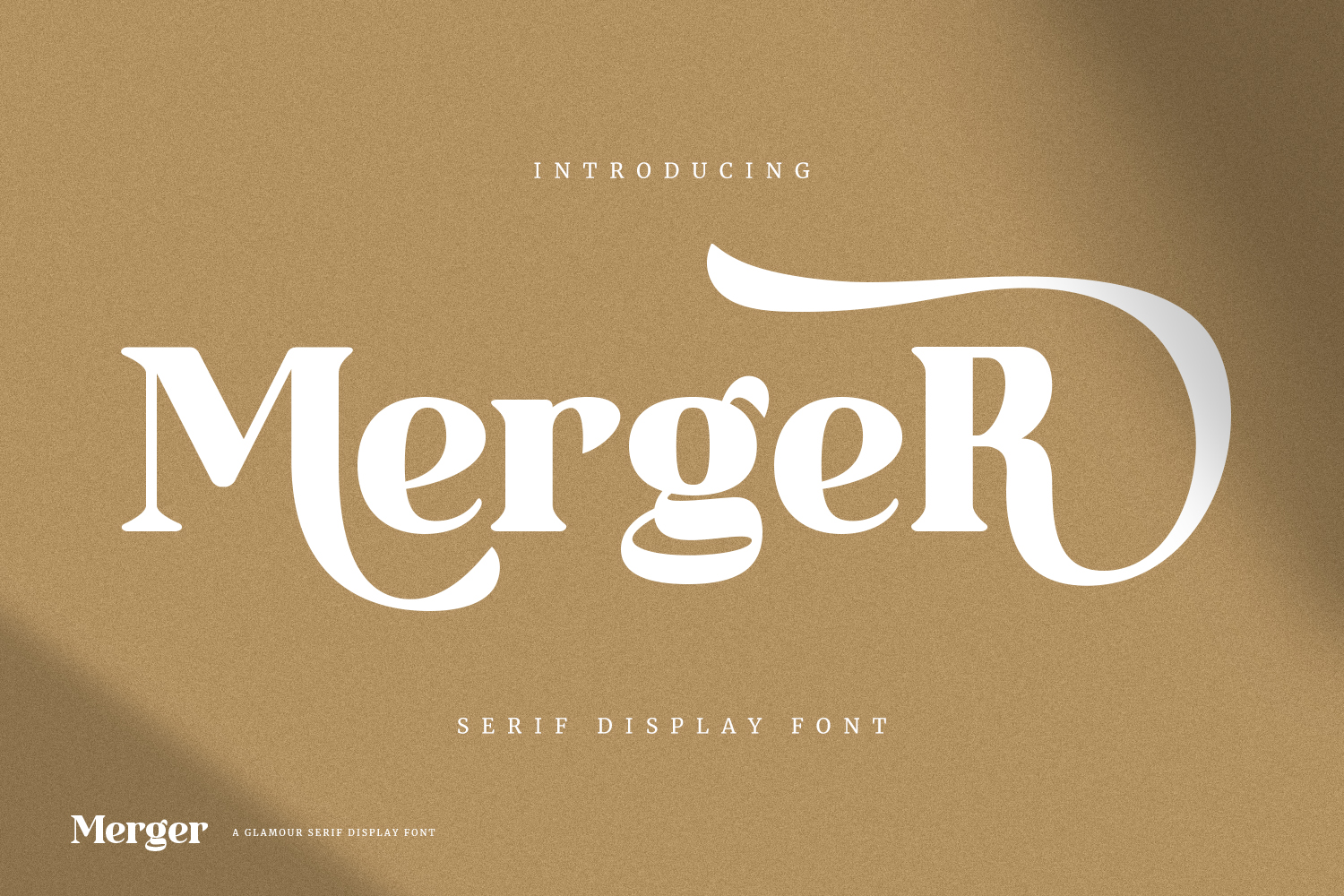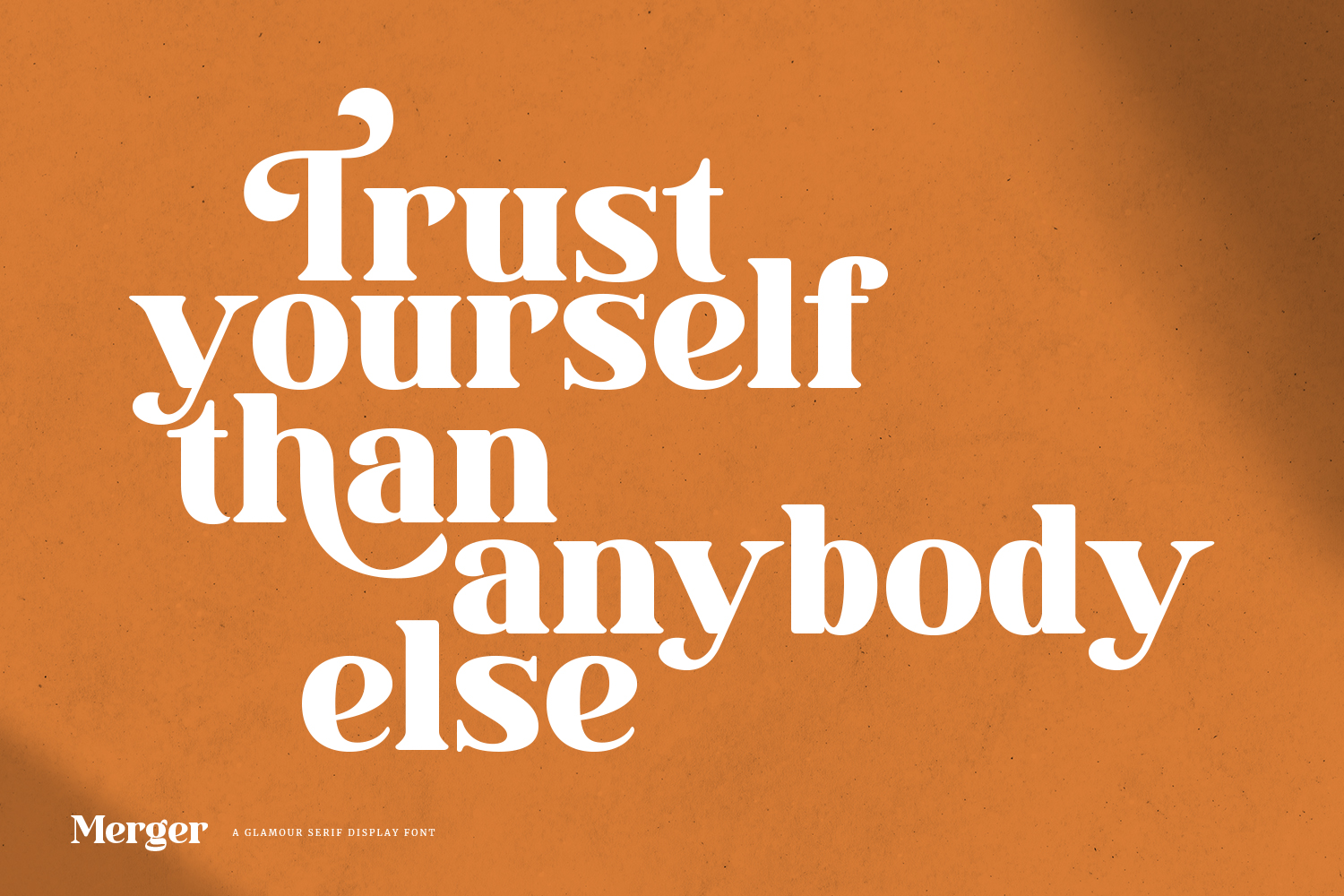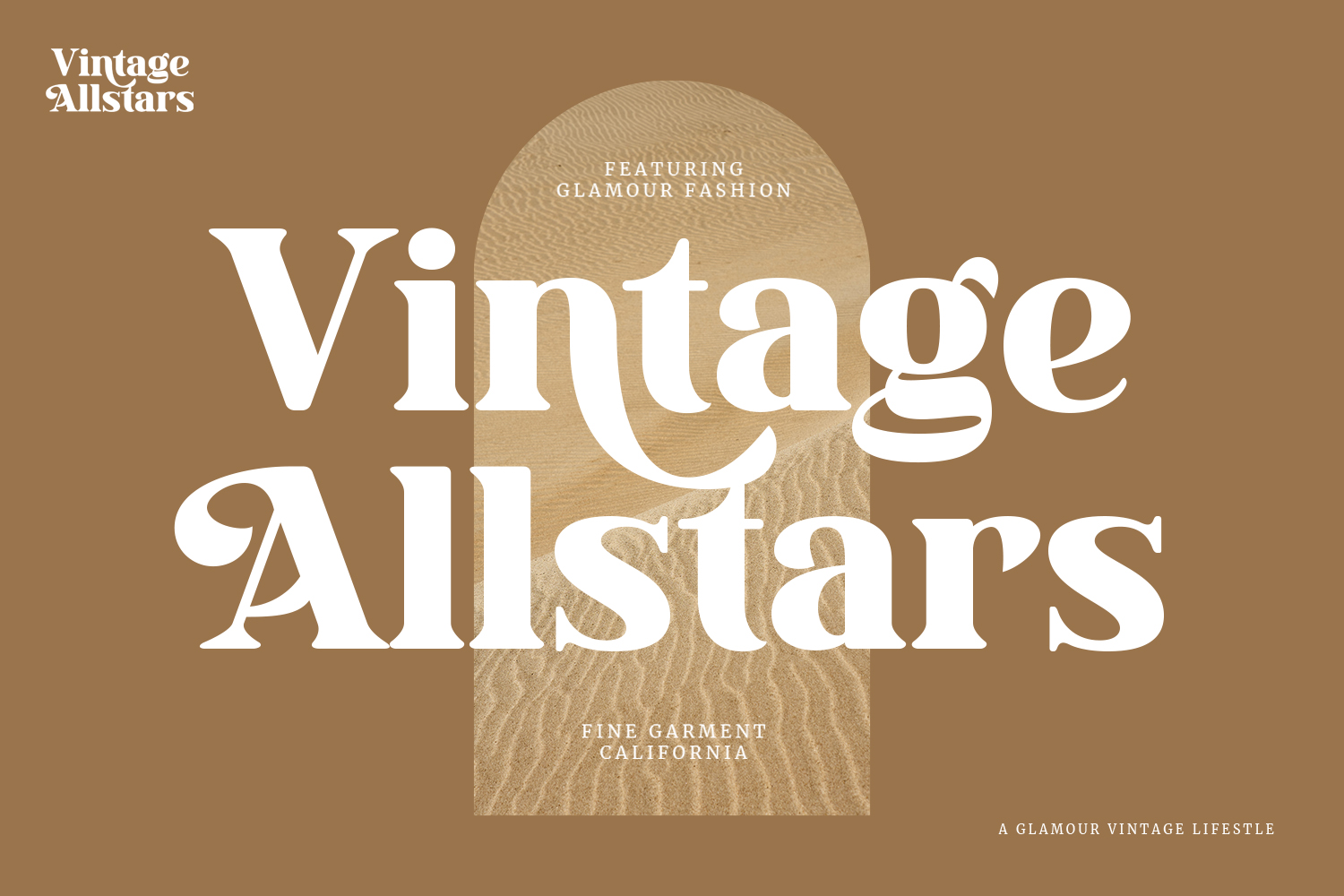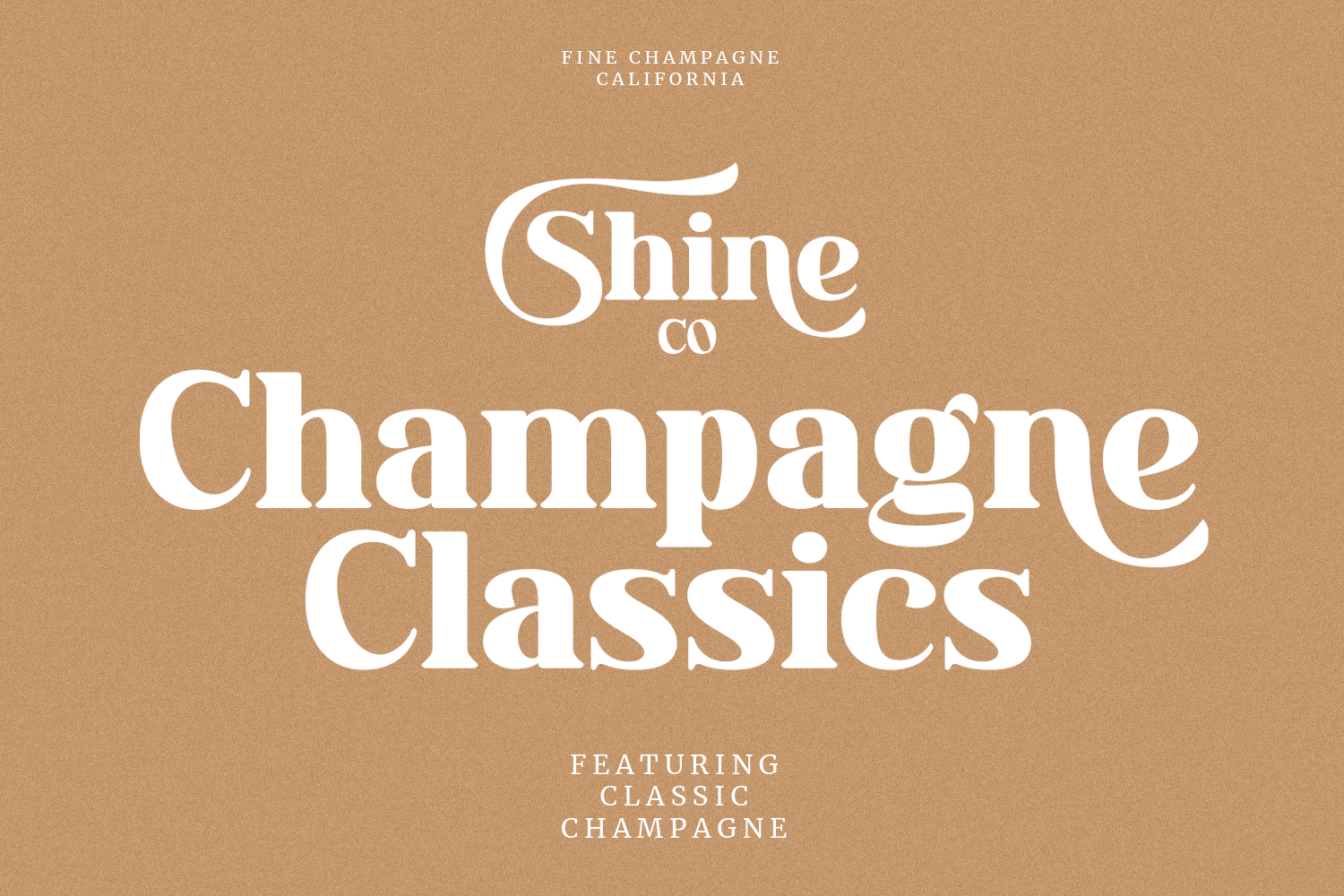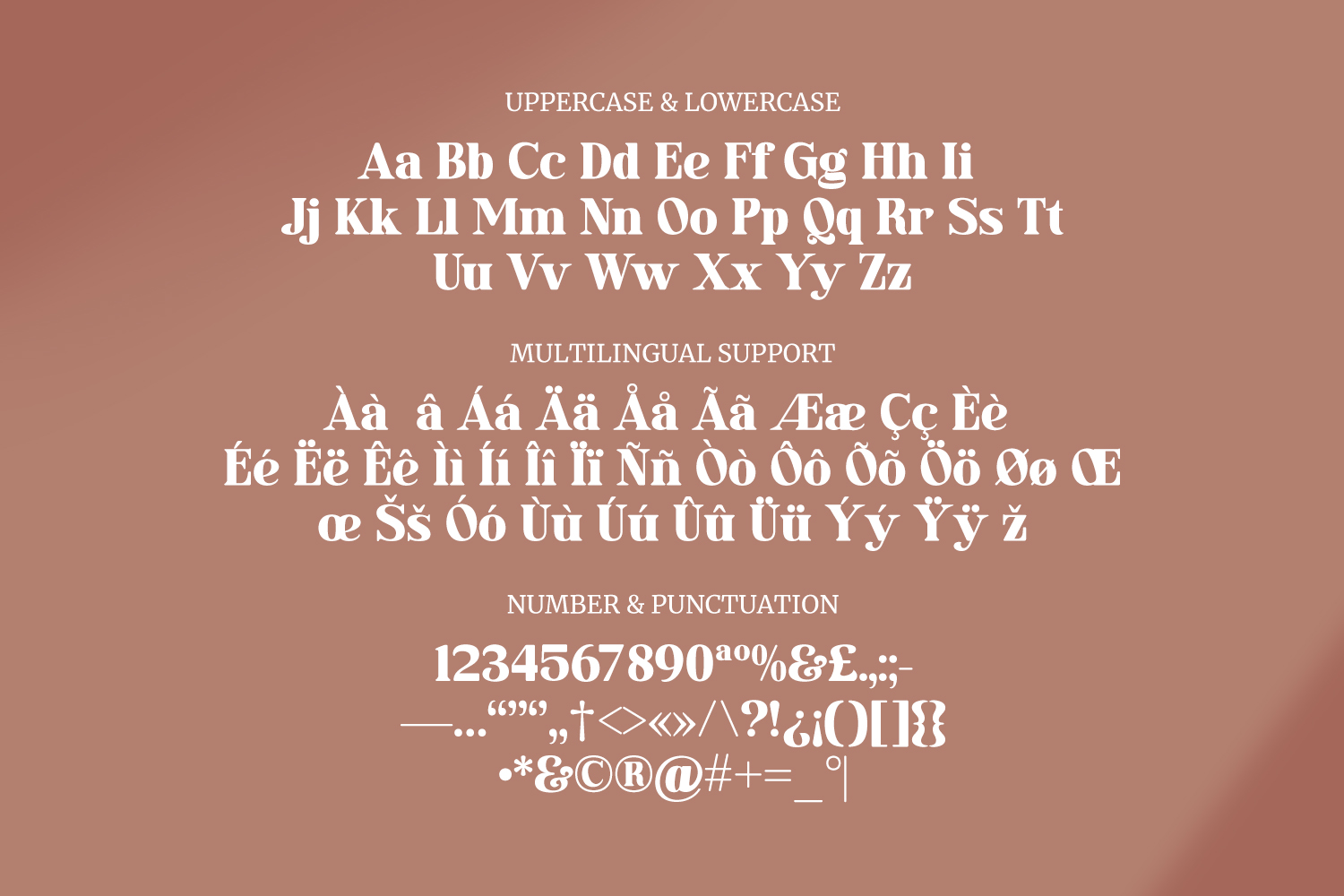
Merger
Merger is a glamorous serif display font that blends vintage charm with a modern, fashionable edge. With its high-contrast strokes, distinctive curves, and elegant terminals, Merger exudes sophistication and flair. The signature swash on characters like “R” and “g” adds a touch of luxury, making it a perfect fit for upscale branding, editorial designs, and packaging that calls for a refined statement.
Ideal for fashion labels, magazine headlines, wedding stationery, and beauty product logos, Merger provides both visual impact and timeless appeal. The font includes full multilingual support and stylish punctuation, ensuring versatility across languages and design contexts. Let your design shine with the graceful elegance of Merger.